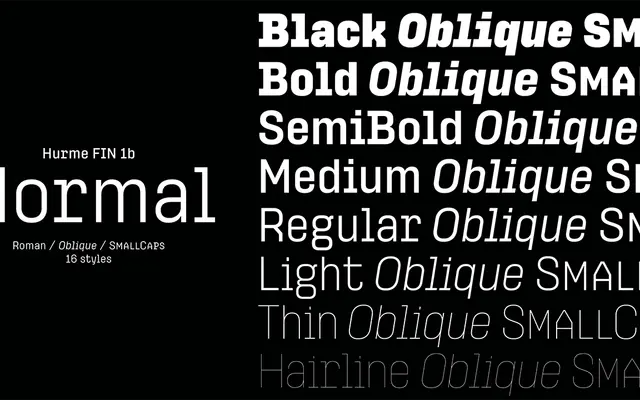
Hurme FIN 1b
A monolinear sans with angular, monospace-inflected characters spanning eight weights and nine widths, totalling 144 styles across the family.
Hurme FIN 1b is the angular counterpart to FIN 1a, substituting more geometric, monospace-inspired letterforms and slab-serif details while sharing the same underlying structure. Short ascenders and descenders, horizontal stroke terminals and optically corrected obliques give it a measured, technical character suited to data-heavy or systematic design work. Purchasing FIN 1b includes corresponding weights of FIN 1a, and both families share access to alternate character sets via OpenType features.
A monolinear sans-serif with horizontal stroke terminals and angular, monospace-inspired characters with slab-serif details, positioned by the foundry as a transitional variant between their monospace FIN Mono and grotesque FIN 1a families.